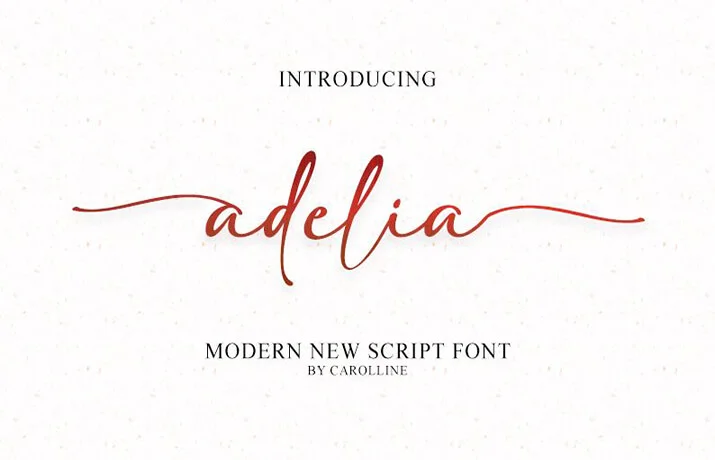
Adelia Font is a signature-style script typeface with the vibe of real hand lettering. It is perfect for brands, beauty brands, fashion, artists, blogging, social media, and more.
Carroline Herrera is known as the primary designer of this calligraphy typeface. We wholeheartedly recommend you try it out!
Adelia Font comes in a single style that has more than 73 attractive characters and 84 glyphs perfect for creating more unique designs.
Many users love the look of this typeface’s characters and use it for a variety of calligraphy designs.
| Font Name: | Adelia Font Family |
| Style: | Script, Calligraphy, Typeface |
| Font Designer: | Carroline Herrera |
Its timeless design draws inspiration from classic fonts, with a modern twist that enhances legibility across various mediums. Whether used in print or digital media, Adelia Font delivers a visually appealing experience for readers of all ages.
With its generous spacing and carefully crafted letterforms, Adelia Font ensures optimal readability, even at small sizes. Its graceful curves and refined strokes lend a touch of sophistication to any project, making it ideal for branding, editorial design, and beyond.
It works well for virtually any branding requirement ranging from product designs, and packaging to social media posts, signatures, covers, posters, product designs, product packaging, shopping bags, and advertisements.
The font adelia contains 351 glyphs and 19 binary stored kerning pairs. It also supports 68 different languages.